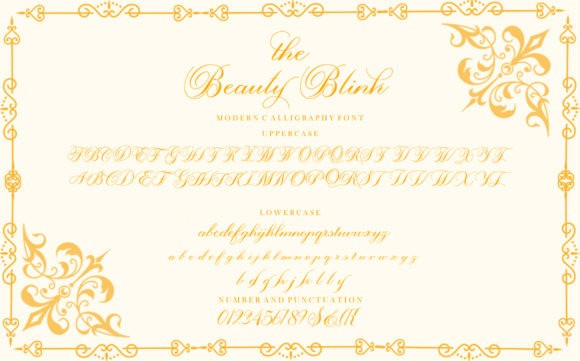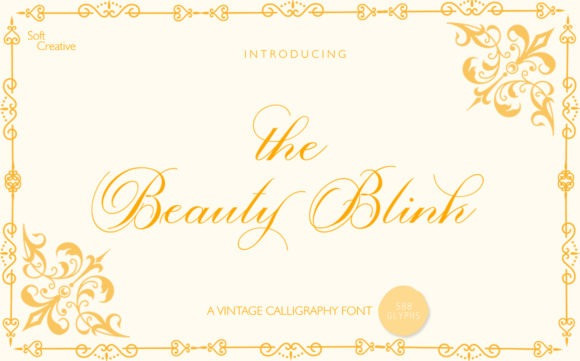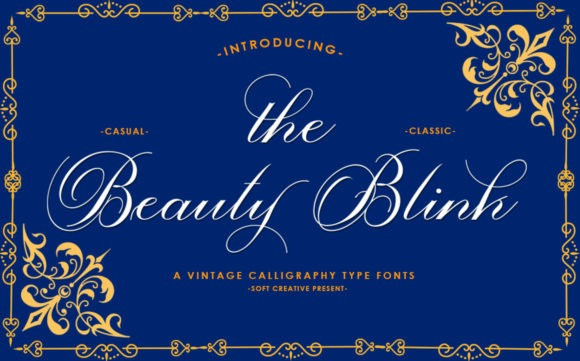
The Beauty Blink Font
The Beauty Blink Calligraphy Font is a delicate, elegant and flowing handwritten font. It has beautiful and well balanced characters and as a result, it matches a wide pool of designs. The Beauty Blink features a varying baseline, smooth lines, gorgeous glyphs and stunning alternates. Add it to your most creative ideas and notice how it makes them come alive!